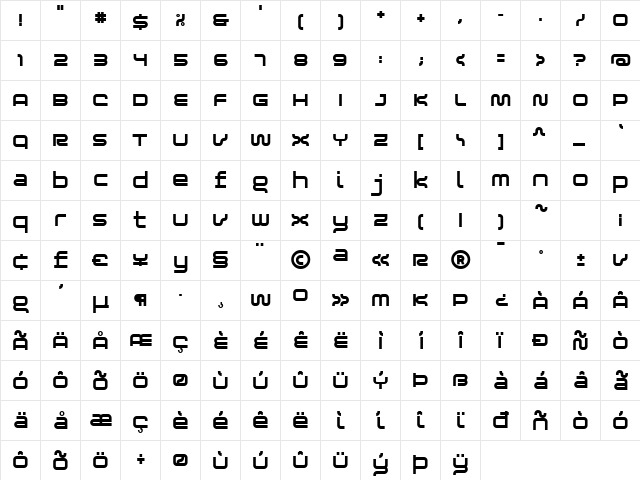
Blessed SemiBold
| Foundry | YouWorkForThem |
| Designer | Michael Cina |
Design Context for Blessed Typeface
Blessed offers clean, dependable letterforms without strong stylistic allegiance, making it a practical choice for designers who need flexibility. Its bold stroke weight gives it real presence on the page.